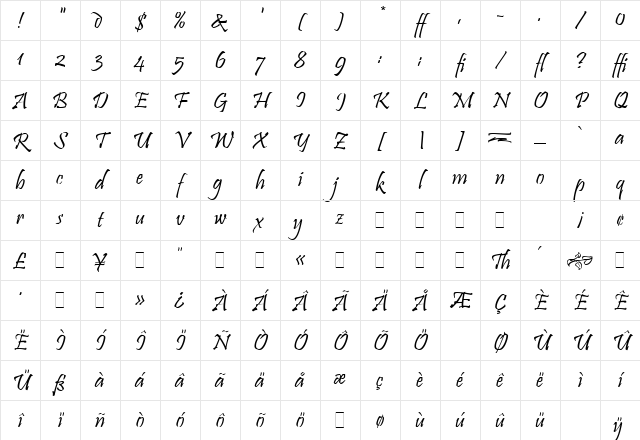
Pristina LET Plain
Design Context for Pristina LET
Pristina LET is a composed and adaptable typeface that performs quietly and consistently across a wide range of design contexts.